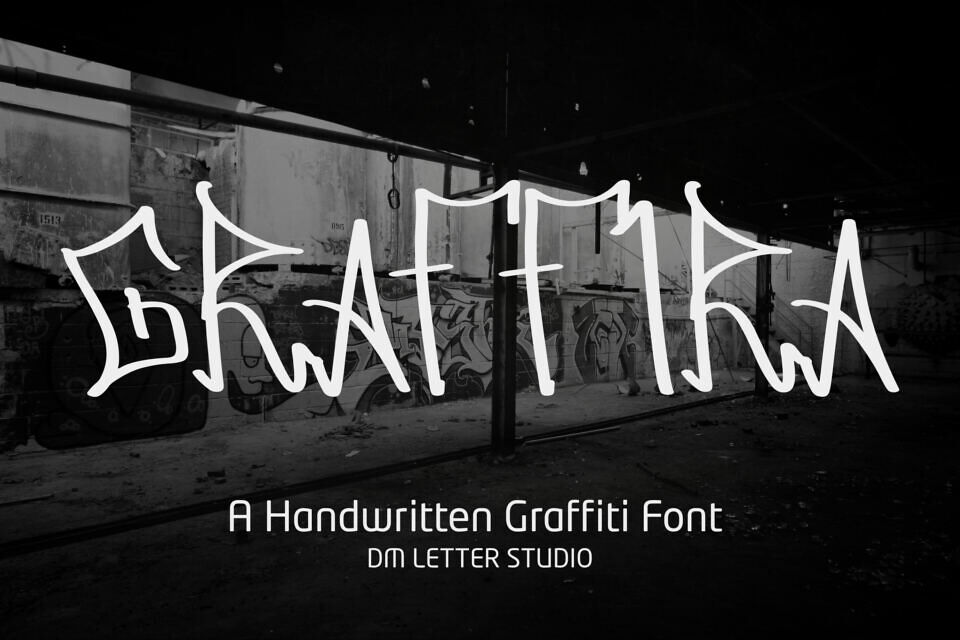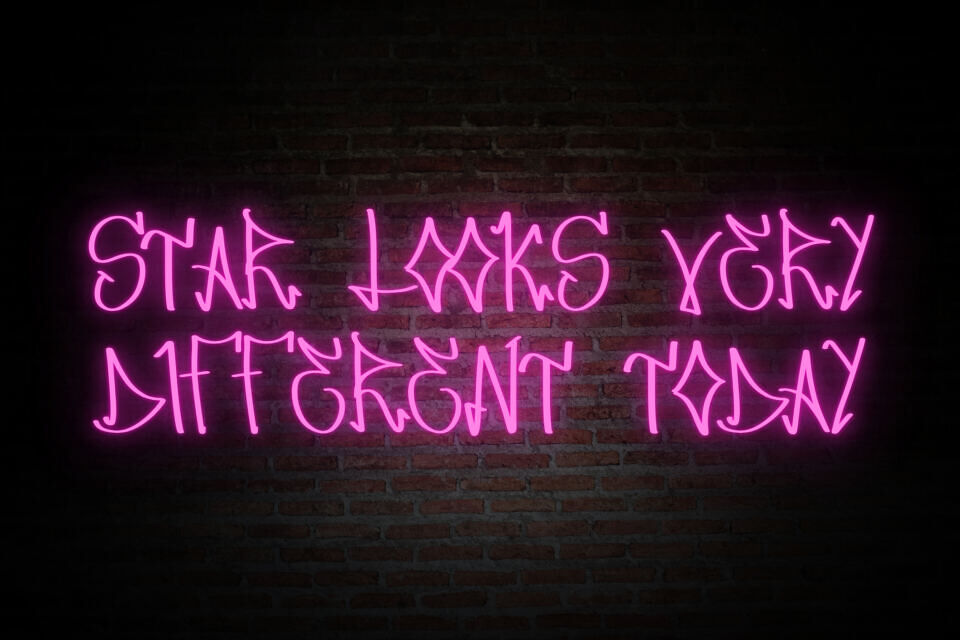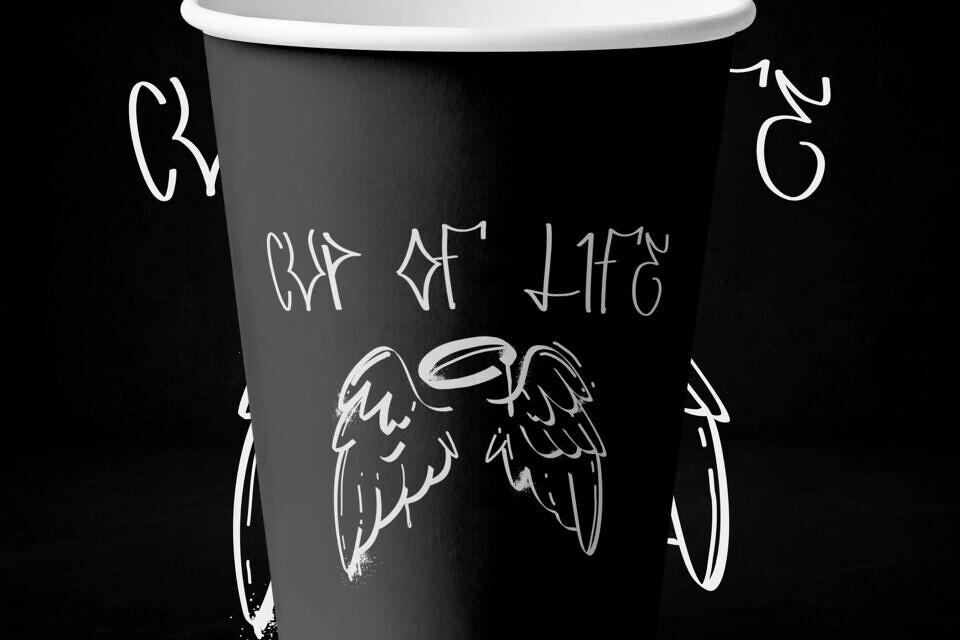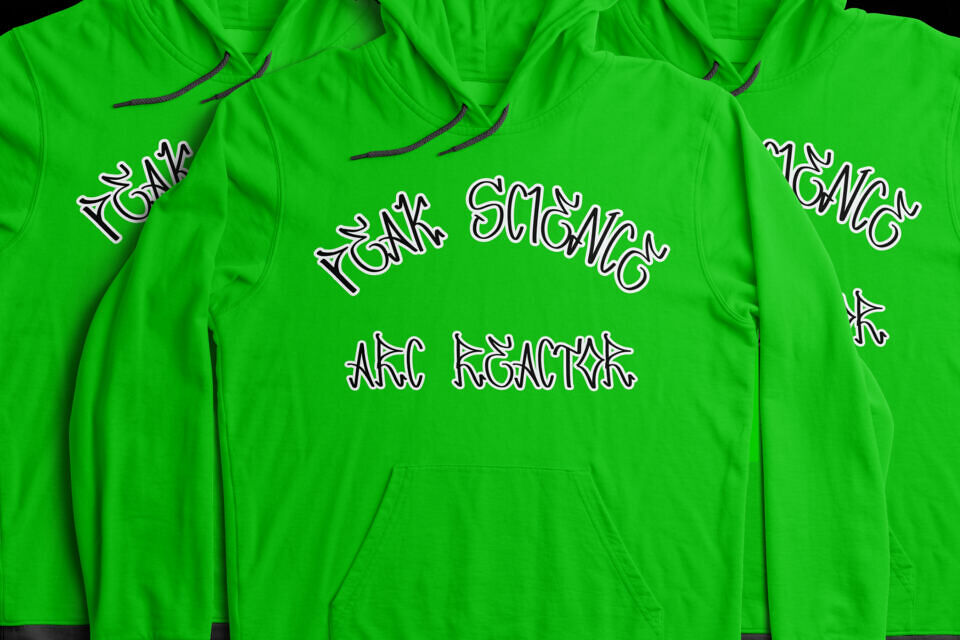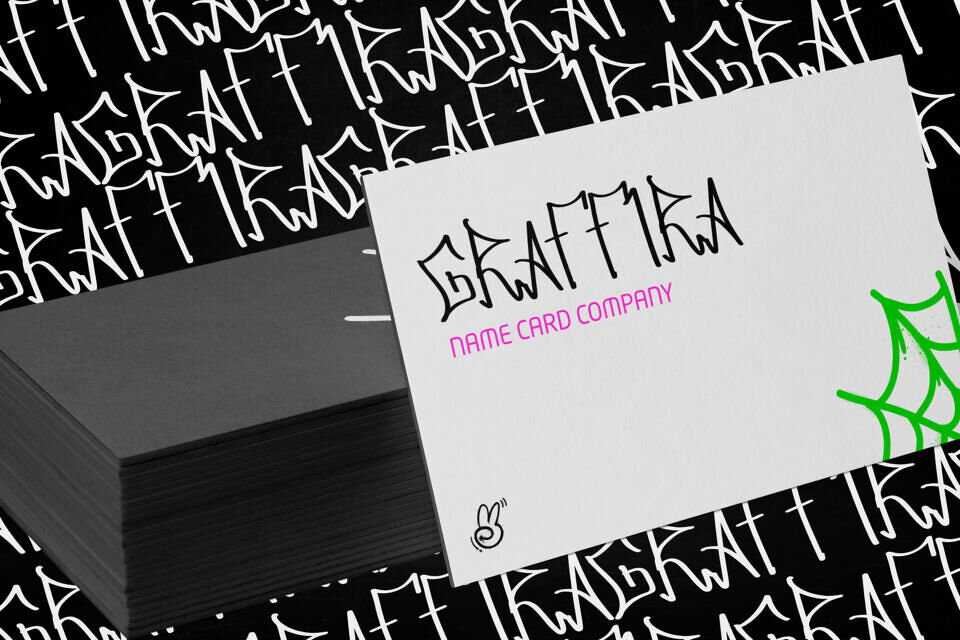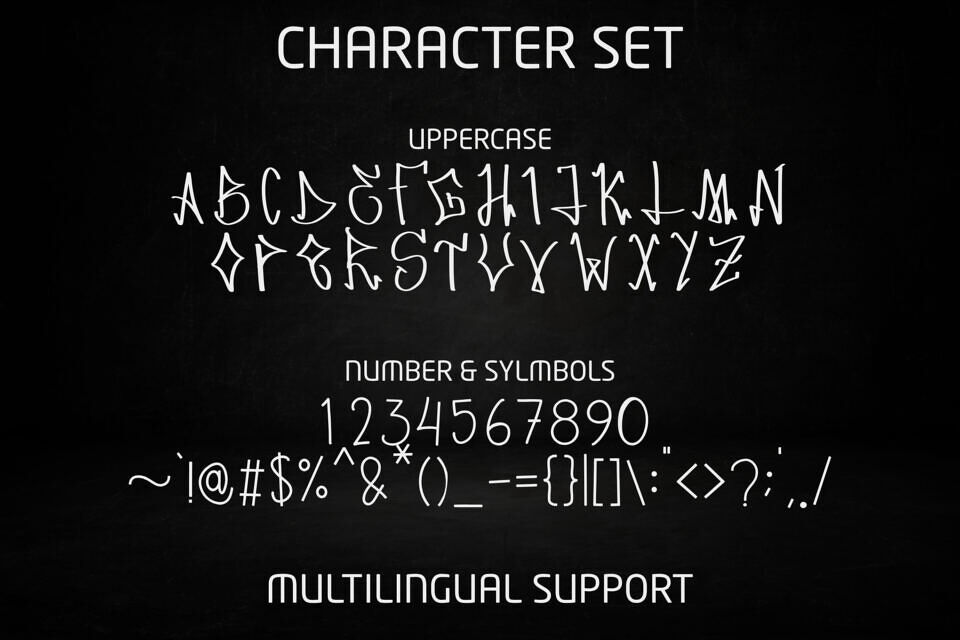
Graffira is an energetic graffiti-inspired display font built for bold and urban designs. With its dynamic strokes, sharp edges, and unmistakable street-art vibe, this typeface brings raw character and modern style to any project.
It captures the essence of graffiti culture while keeping the structure versatile enough for professional use. Whether you’re designing music covers, streetwear branding, posters, or social media graphics, Graffira ensures your message stands out with attitude and personality.